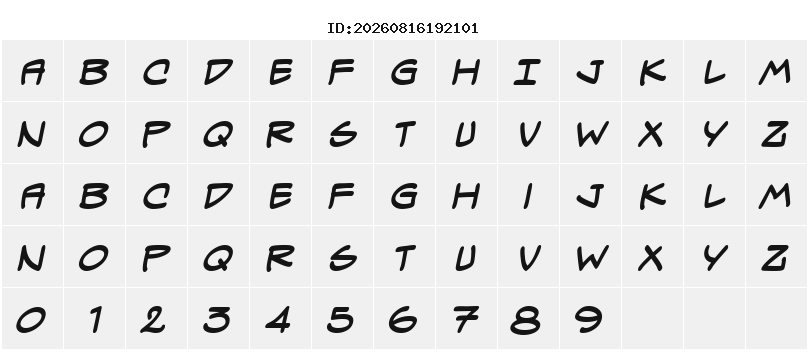
Spectre Verde BB Preview
• Font Name: Spectre Verde BB
• Full Font Name: Spectre Verde BB Bold
About Spectre Verde BB.ttf
Spectre Verde BB.ttf is a modern, elegant sans-serif font designed for ultimate readability and visual harmony. Perfect for branding, headlines, web design, and print materials.